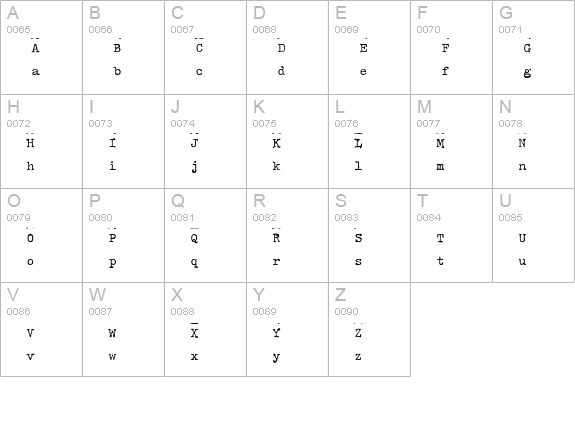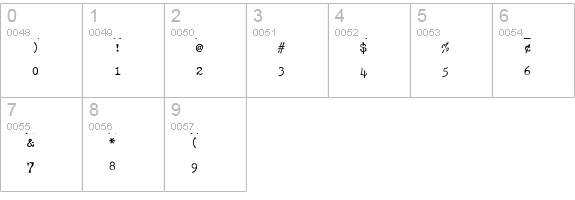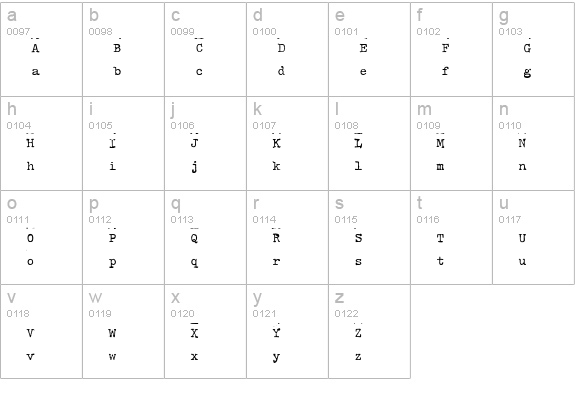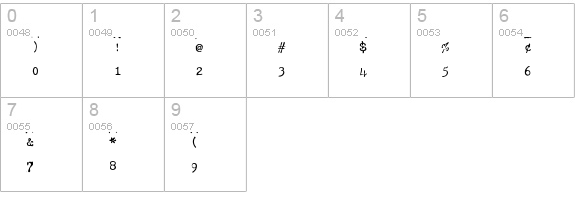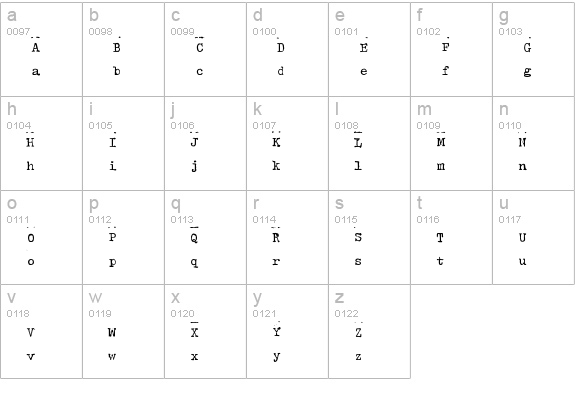
HammerKeys Font Details
HammerKeys font is a visually stunning typeface that is sure to make a bold statement in any design project. With its modern and sleek design, HammerKeys strikes the perfect balance between elegance and edginess. Each character is meticulously crafted, featuring sharp corners and unique details that add a touch of sophistication. This font is not only aesthetically pleasing but also highly versatile. Whether you're designing a logo, creating eye-catching headlines, or designing a poster, HammerKeys will effortlessly enhance your work and make it stand out from the crowd. And the best part? HammerKeys is completely free! That's right, this remarkable font is freely available to download at FontsMarket.com. Say goodbye to expensive font licenses and hello to creative freedom. With HammerKeys, you have the ability to bring your design visions to life without breaking the bank. So why wait? Download HammerKeys today and unleash your creativity. Transform your projects into captivating masterpieces with this exceptional font. Get ready to captivate your audience and leave a lasting impression with HammerKeys.